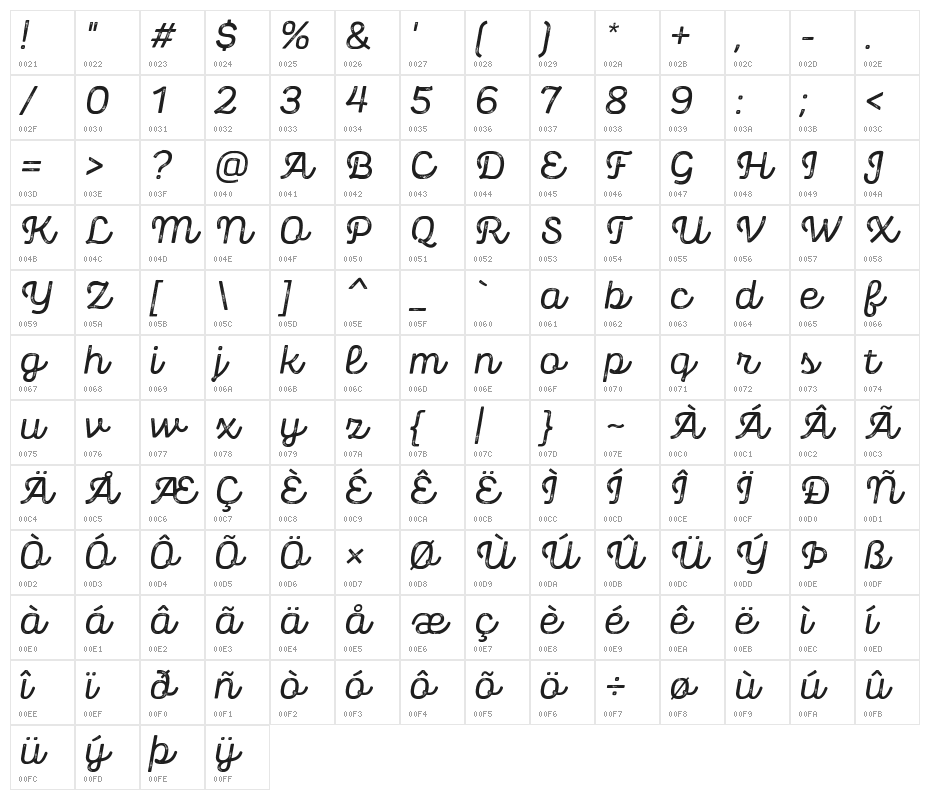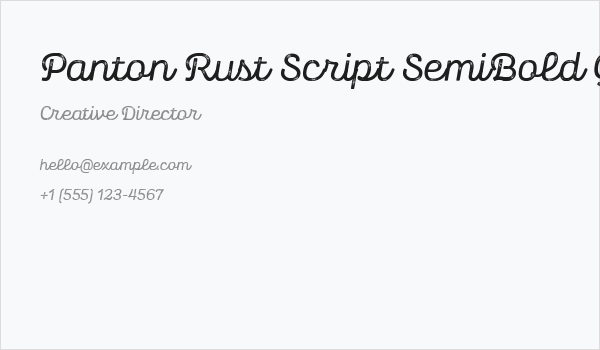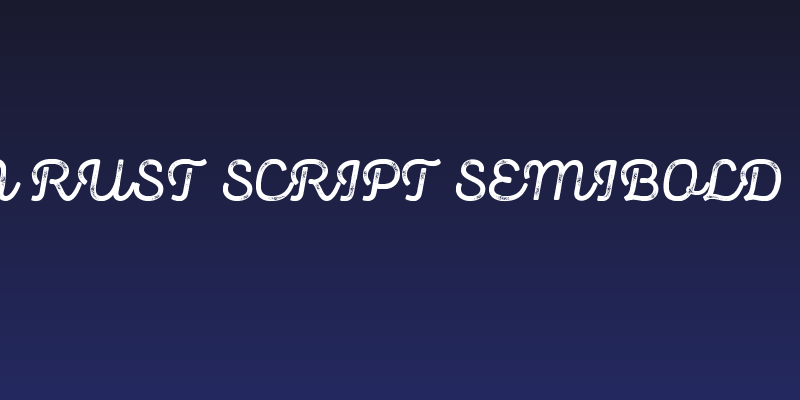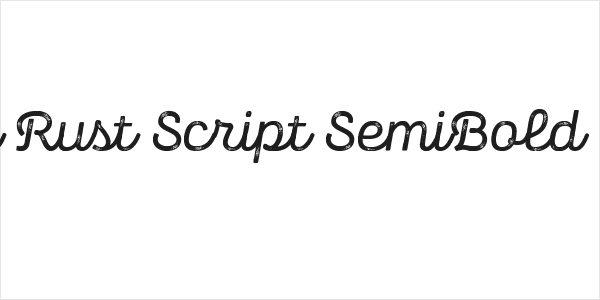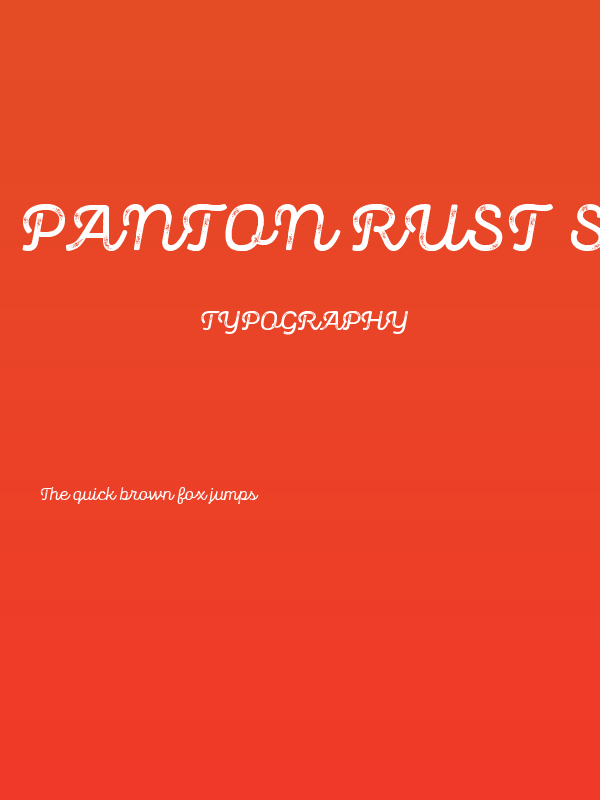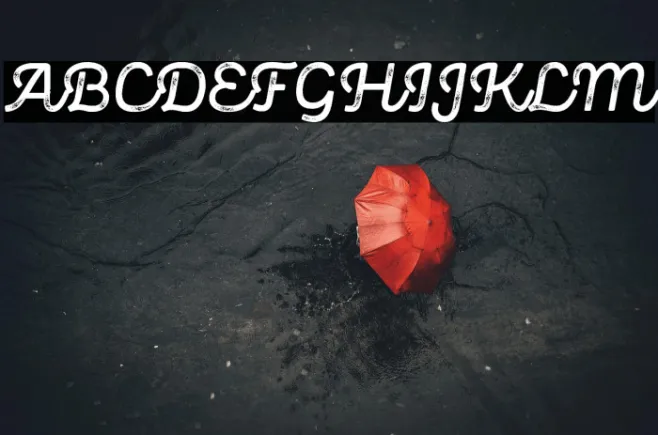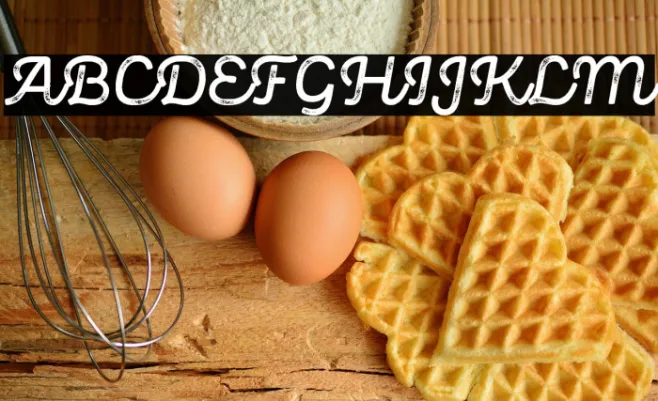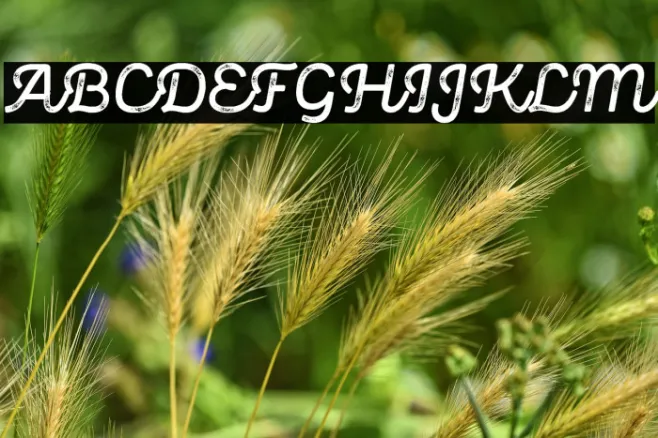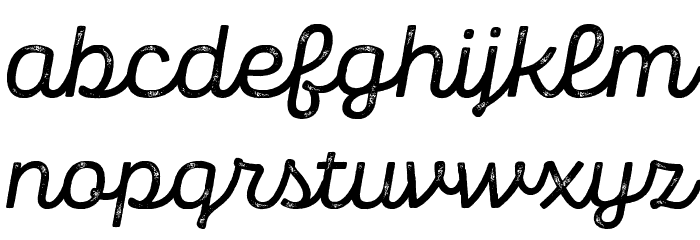
Panton Rust Script SemiBold Grunge Font
Panton Rust Script SemiBold Grunge Description
This font features a distinctive grunge texture, giving it a worn and rustic appearance. The script style is semi-bold, offering a balance between elegance and readability. Each character is crafted with a slight slant, adding a dynamic flow to the text. The uppercase and lowercase letters maintain a consistent style, with rounded edges and a smooth, flowing connection between strokes. Numbers and special characters are designed to match the overall aesthetic, ensuring a cohesive look across all elements. The font's unique texture makes it stand out, ideal for projects that require a vintage or handcrafted feel.
| Proposed Projects | Ideal for branding, packaging, posters, and invitations that require a vintage or handcrafted aesthetic. |